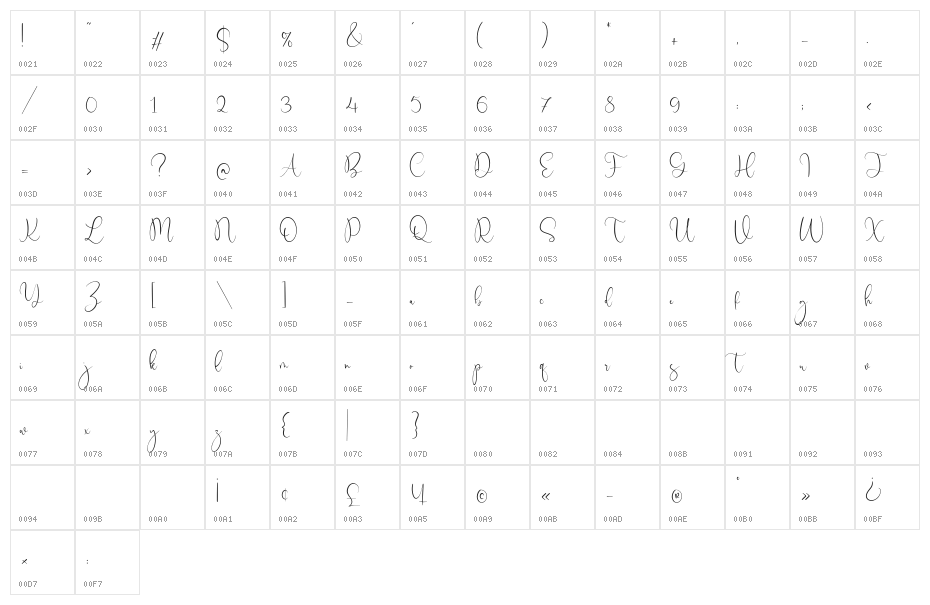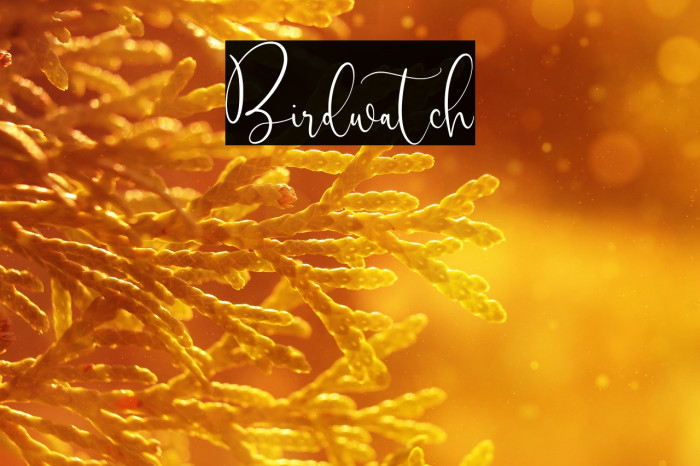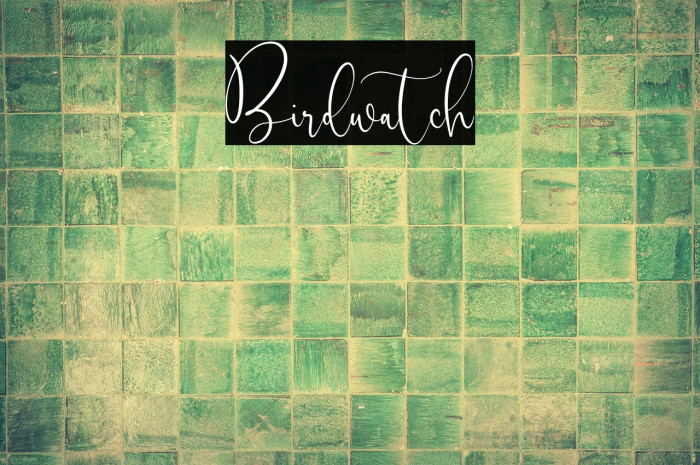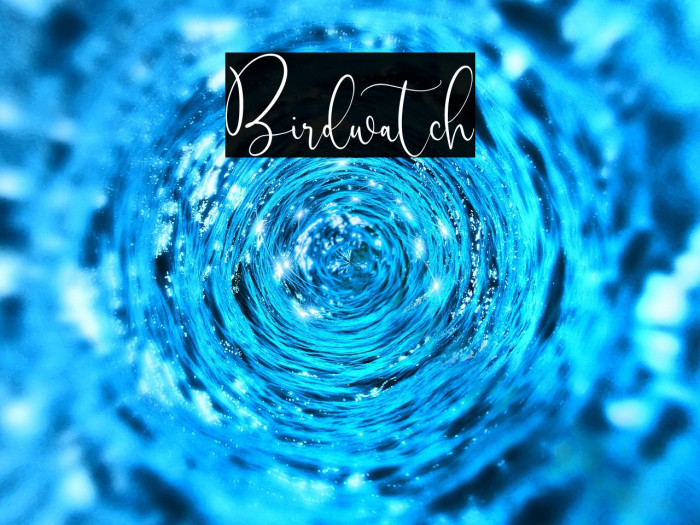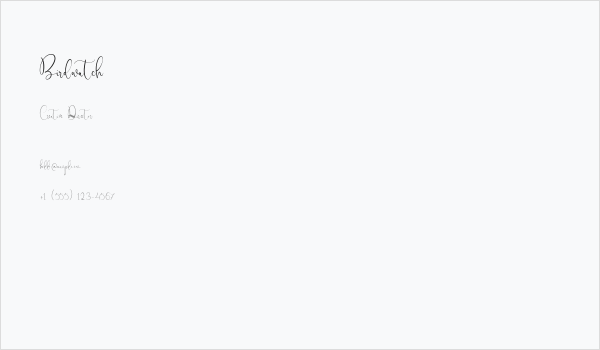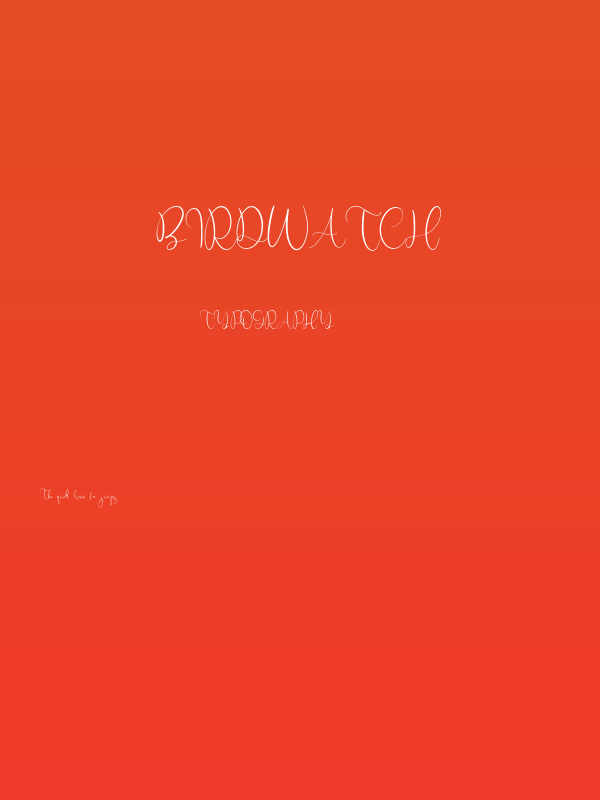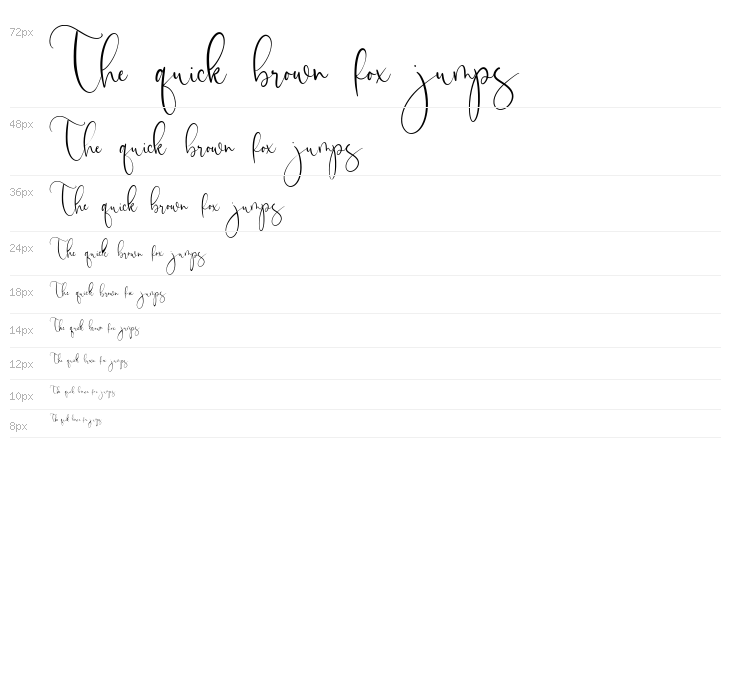
Birdwatch Font
Birdwatch Description
This font features an elegant and flowing script style, characterized by its graceful curves and loops. The uppercase letters are ornate, with sweeping ascenders and descenders that add a touch of sophistication. The lowercase letters maintain a consistent fluidity, creating a harmonious balance between each character. Numbers and special characters are designed with the same attention to detail, ensuring a cohesive look throughout. The overall appearance is delicate yet impactful, making it suitable for projects that require a personal and artistic touch.
| Use Case | Logos, Invitations, Decorative text |
| Proposed Projects | Ideal for wedding invitations, greeting cards, branding, and logo design. |